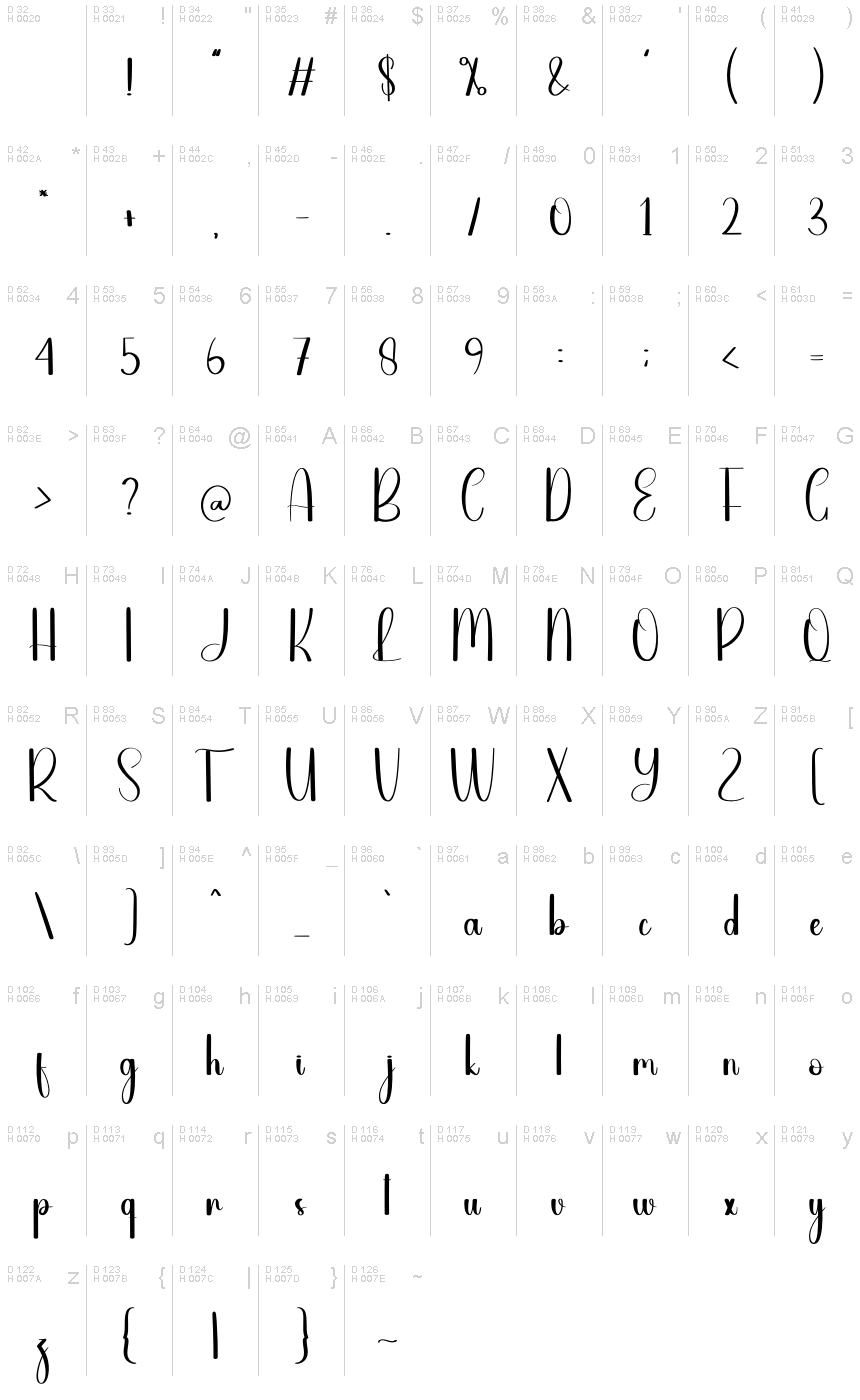
Handline
Handline is a captivating handwritten font designed by Andi Moz. Its condensed, flowing strokes exude a sense of elegance and artistry, making it an ideal choice for a wide range of design applications. From impactful headings and titles to charming branding and packaging, Handline's unique character seamlessly blends modern aesthetic with a touch of vintage flair.
The font's versatility allows it to seamlessly transition between formal and casual settings, making it a valuable asset for designers seeking to create visually striking and memorable compositions.